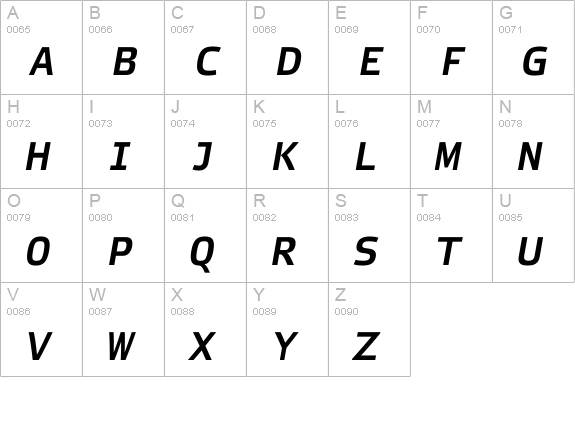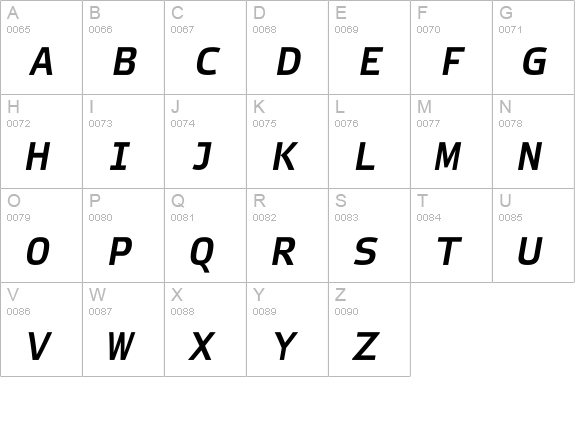
Etelka Monospace Pro Bold Italic is a strong, high-contrast, italic variant in the Etelka typeface family \xE2\x80\x94 well suited to headlines, attention-grabbing titles, and strong calls-to-action.
Etelka Monospace Pro Bold Italic is a versatile and modern font that strikes the perfect balance between professionalism and creativity. Its bold and italic styling adds a touch of sophistication to any design project, making it ideal for headings, titles, and emphasis. The clean lines and distinctive characters of this font make it stand out, while still maintaining a sense of readability and clarity. What sets Etelka Monospace Pro Bold Italic apart is its free availability for download at FontsMarket.com. This means that anyone can access this high-quality font without any cost, making it a valuable resource for designers, developers, and creatives looking to elevate their work without breaking the bank. Whether you're working on a branding project, a website design, or a print publication, Etelka Monospace Pro Bold Italic is sure to make a bold statement and leave a lasting impression.